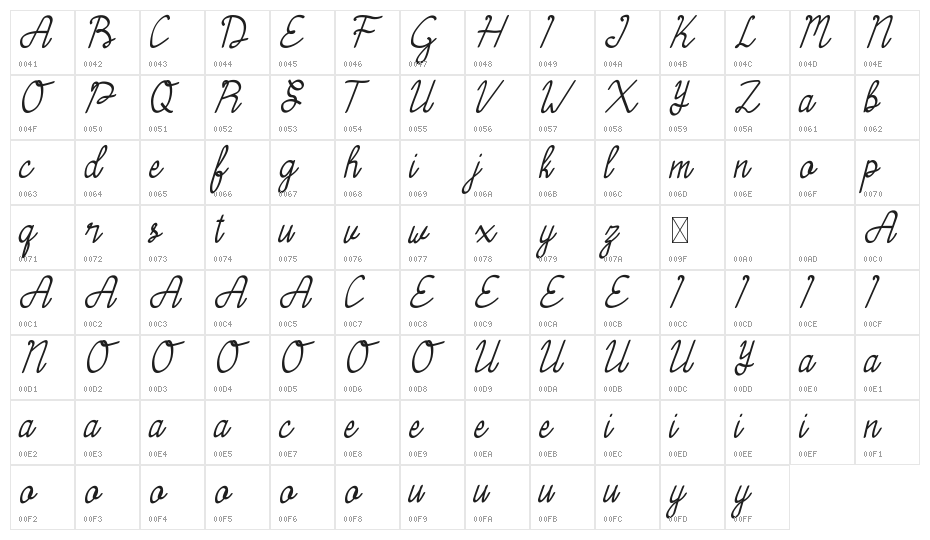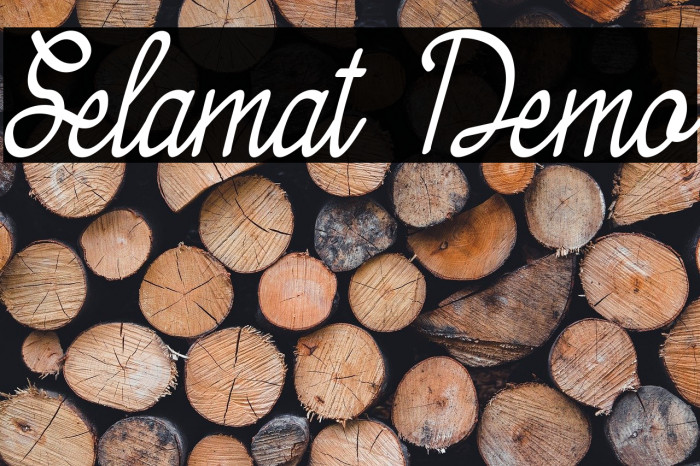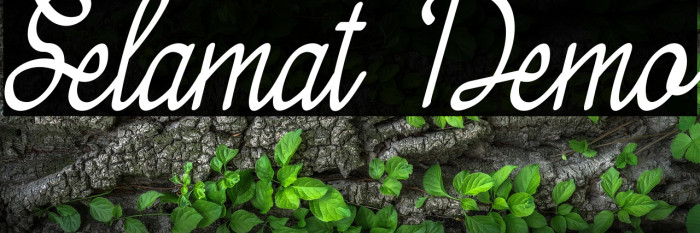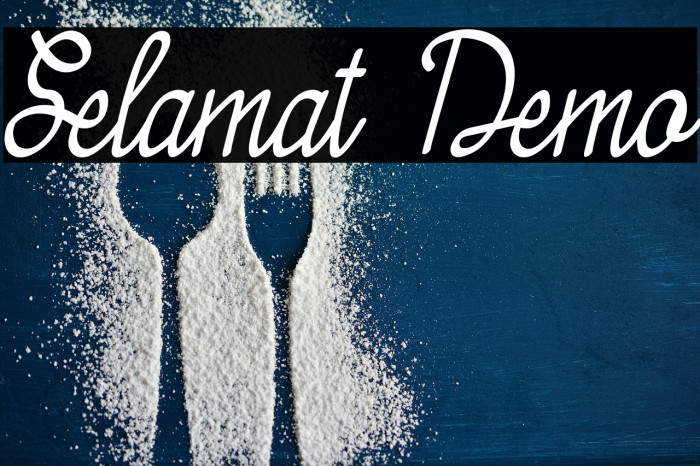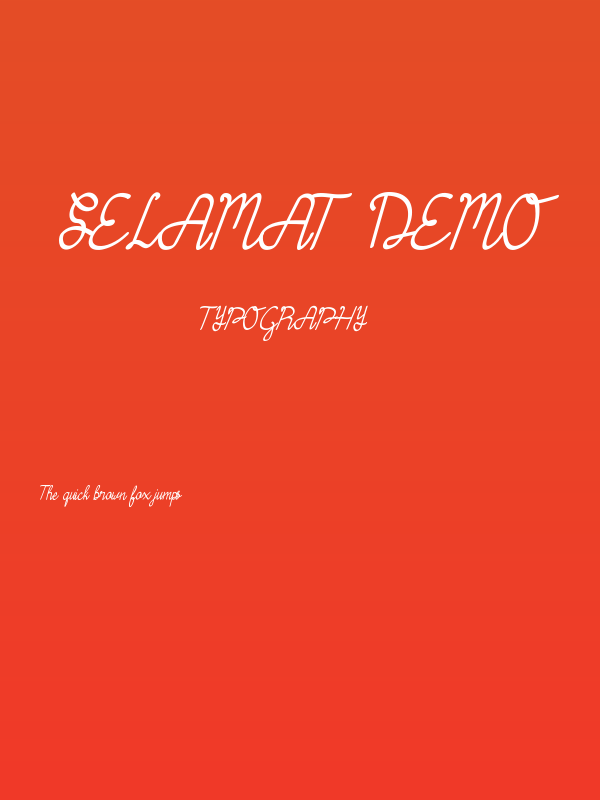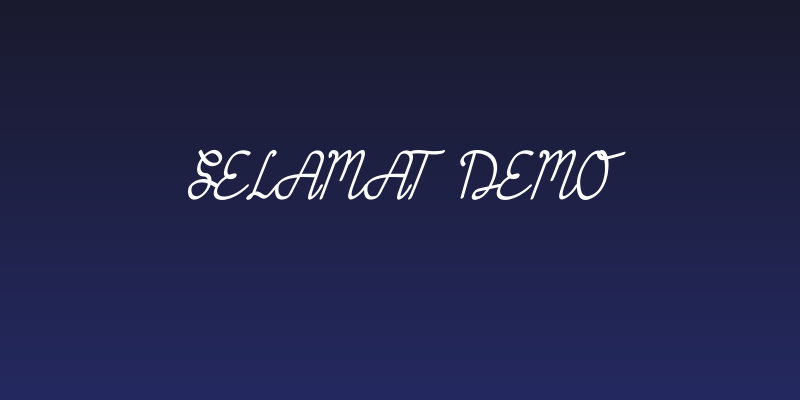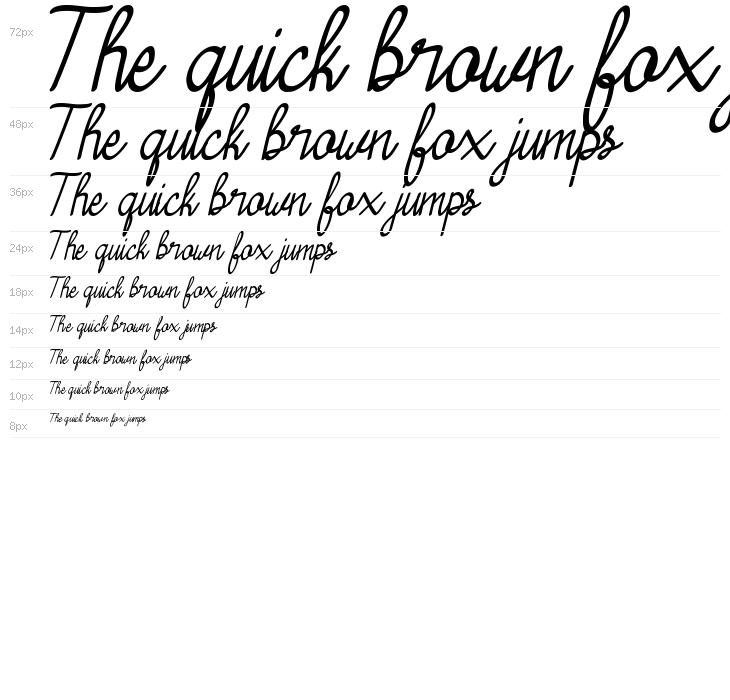
Selamat Demo Font
Selamat Demo Description
This font features a flowing, cursive style that mimics elegant handwriting. The characters are interconnected, creating a seamless and fluid appearance. The uppercase letters are slightly more ornate, with gentle curves and loops that add a touch of sophistication. The lowercase letters maintain a consistent height, contributing to a harmonious and balanced look. The numbers and special characters are designed to match the overall aesthetic, ensuring a cohesive appearance across all text. This font is ideal for projects that require a personal, handwritten touch, such as invitations, greeting cards, or branding materials.
Overall StyleElegant, Handwritten
Use CaseLogos, Invitations, Decorative text
Proposed ProjectsIdeal for wedding invitations, personal branding, greeting cards, and decorative projects.